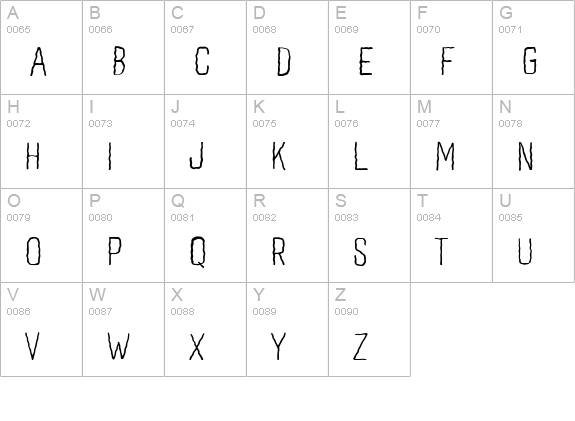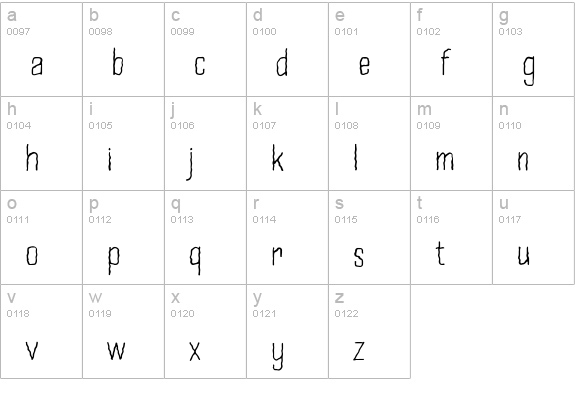
Wavy Lines Font Details
Wavy Lines is a demo font in the Dingbats > Kids category, designed by patria_typestudio. It has been downloaded 10 times and is available for Windows, Mac and Linux.
Introducing the captivating and dynamic Wavy Lines font, a stunning typeface that exudes creativity and energy. With its unique, flowing lines and modern aesthetic, Wavy Lines is perfect for adding a touch of whimsy and personality to any project. Whether you're designing a poster, logo, or social media graphic, this font will instantly elevate your work and catch the eye of your audience.